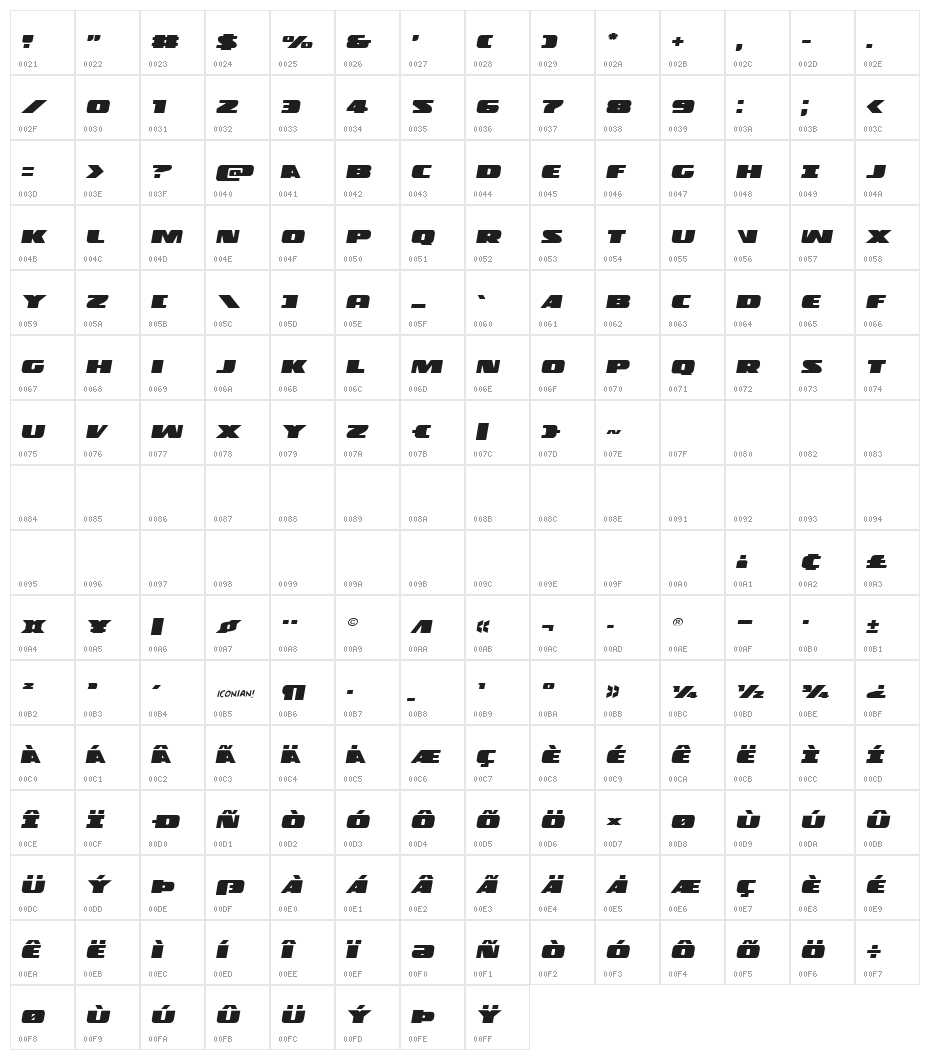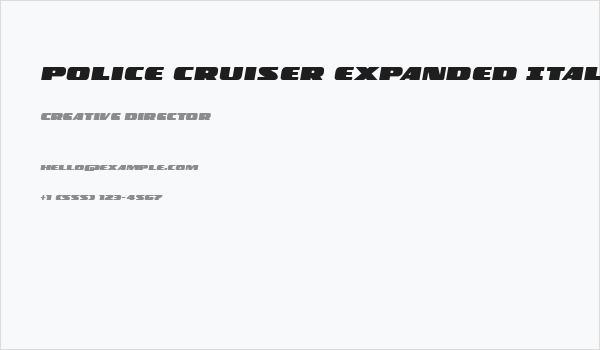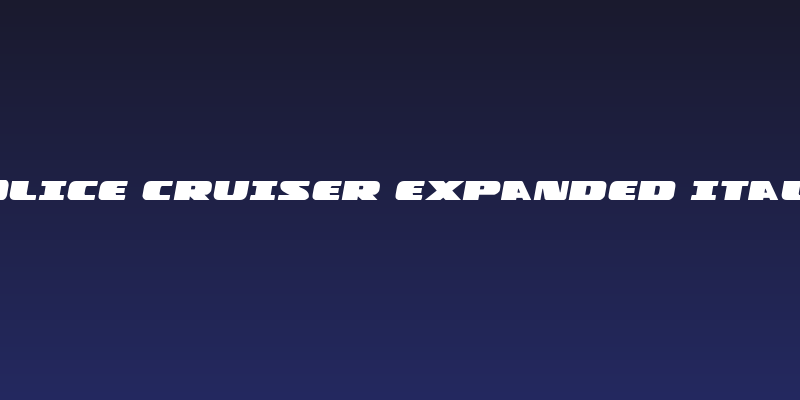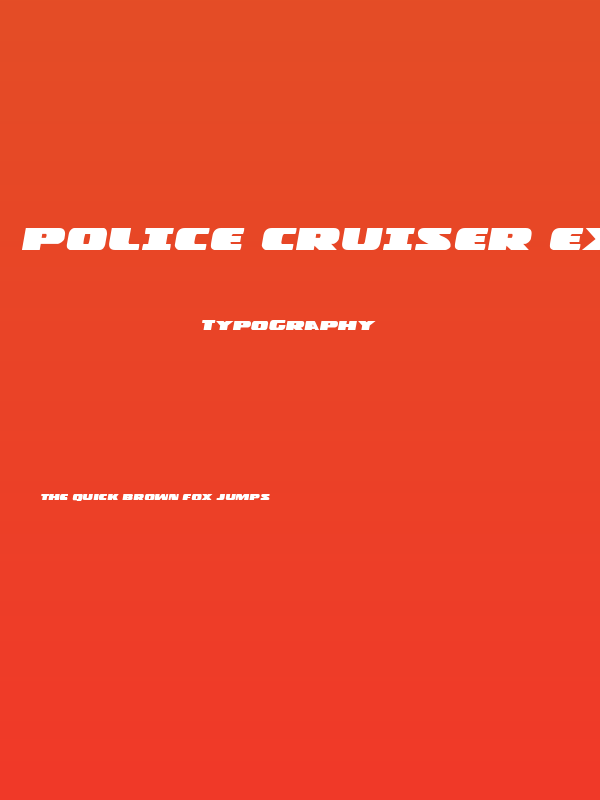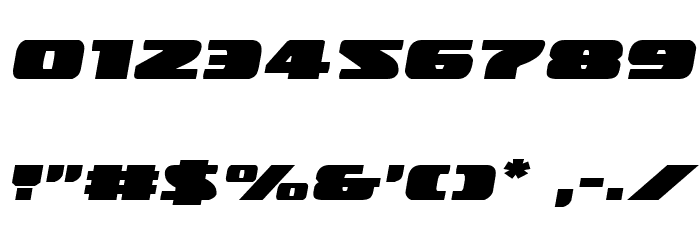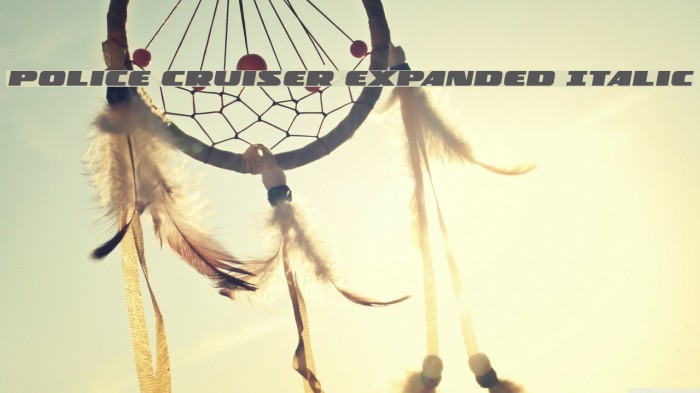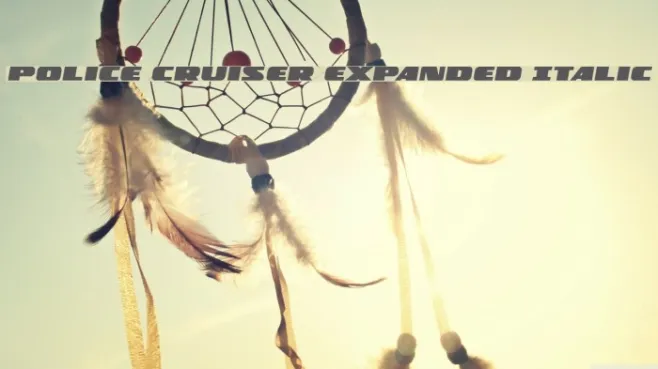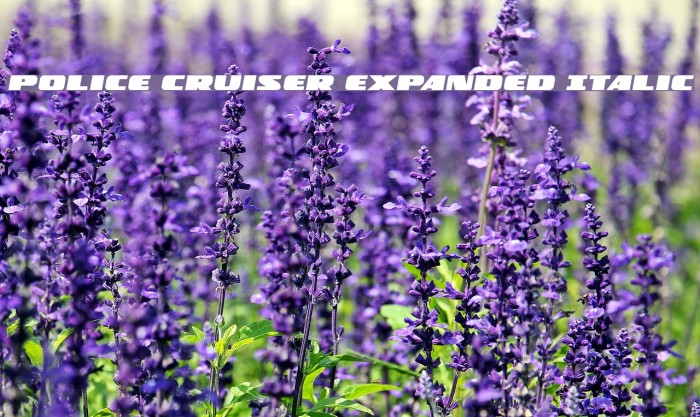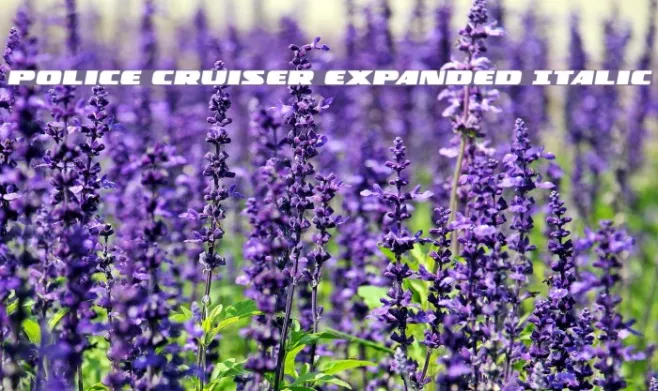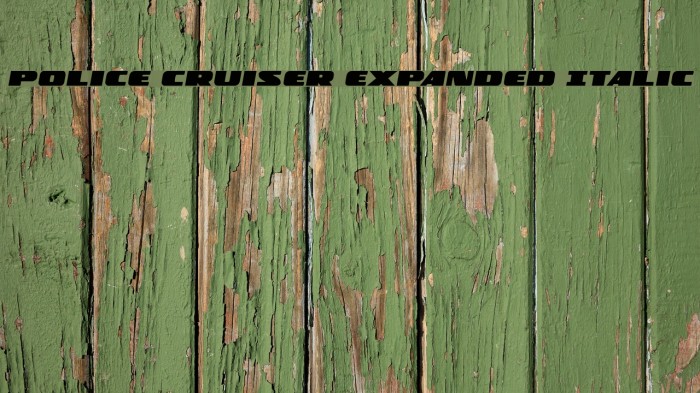
Police Cruiser Expanded Italic Font
Police Cruiser Expanded Italic Description
This font features a bold and dynamic style with an expanded and italicized form. The characters are robust and have a strong presence, making them ideal for impactful designs. The uppercase letters are particularly wide, giving a sense of authority and power. The numbers and special characters maintain the same boldness, ensuring consistency throughout. The italic slant adds a sense of motion and speed, enhancing the font's energetic appearance. This style is perfect for projects that require a commanding and modern look.
| Use Case | Logos, Headlines, Branding |
| Proposed Projects | Ideal for use in branding, sports team logos, automotive designs, and any project needing a strong, modern aesthetic. |